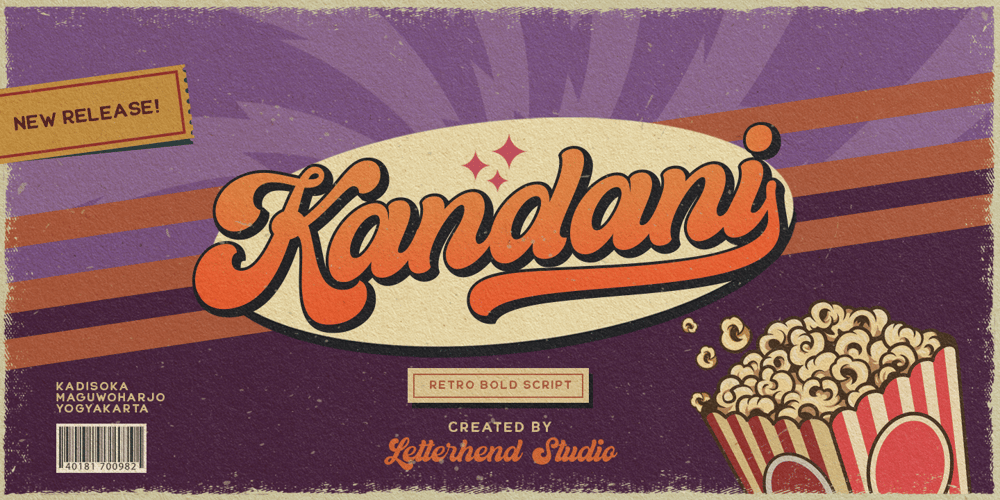
Kandani Font Family was designed by Hendry Juanda and published by Letterhend. Kandani contains 2 styles and family package options. Introducing, Kandani. A retro bold script which will bring you back to 60s feel. This typeface has the extrude version so you can create your retro effect font in ease. This font perfectly made to be applied especially in logo, and the other various formal forms such as invitations, labels, logos, magazines, books, greeting / wedding cards, packaging, fashion, make up, stationery, novels, labels or any type of advertising purpose.Features : uppercase & lowercase numbers and punctuation multilingual ligatures alternates swashes PUA encoded We highly recommend using a program that supports OpenType features and Glyphs panels like many of Adobe apps and Corel Draw, so you can see and access all Glyph variations. For accessing opentype feature, kindly check this link letterhend.com/tutorials/using-opentype-feature-in-any-software/Email us to letterhend@gmail.com if you need something! Happy Designing!